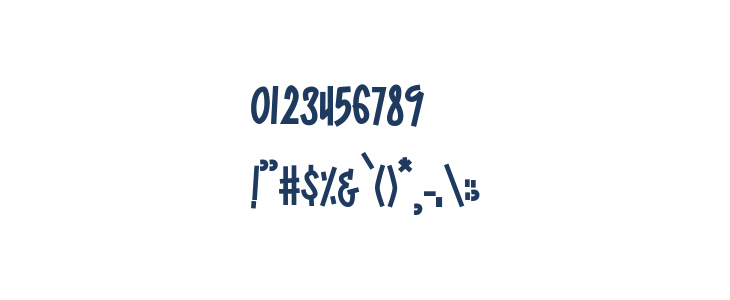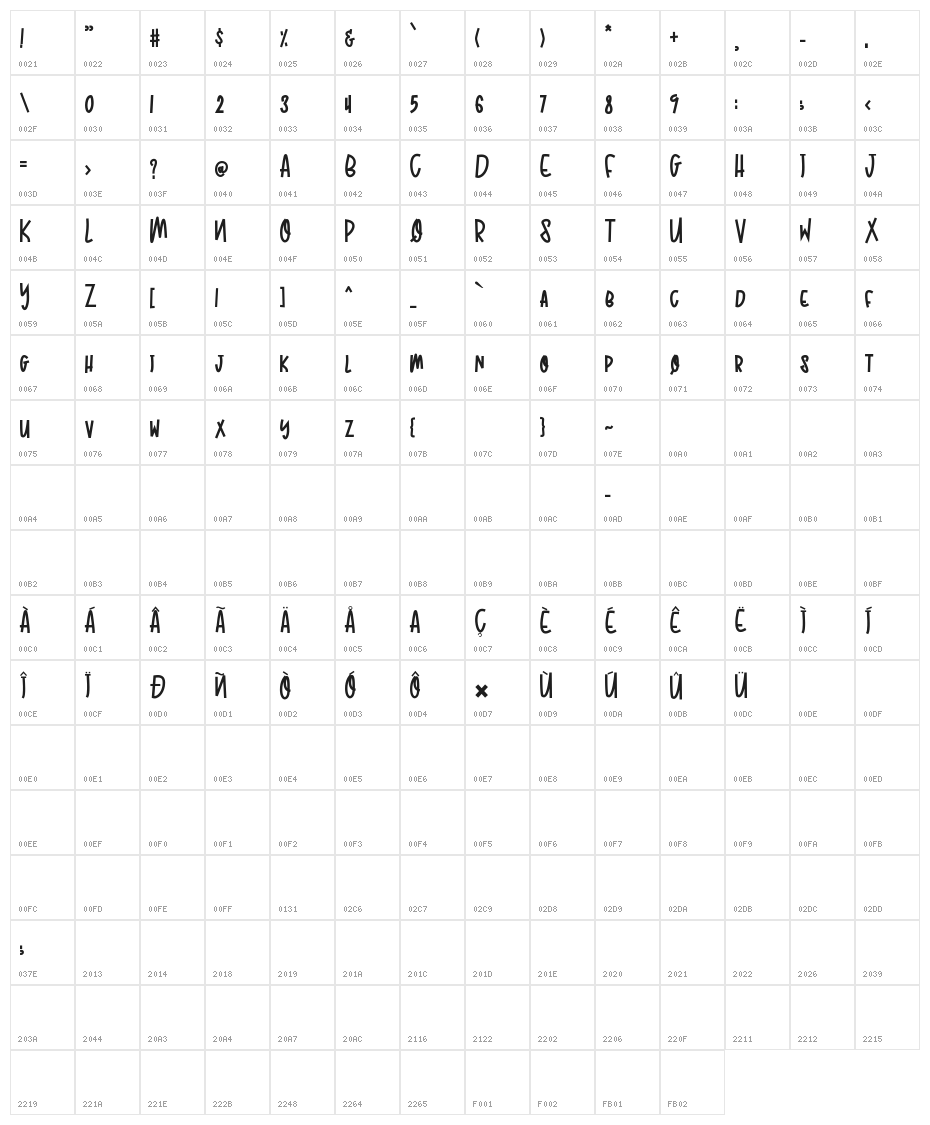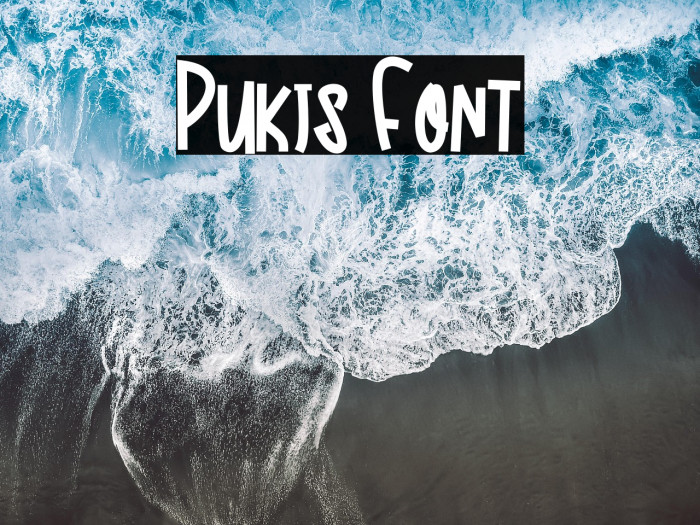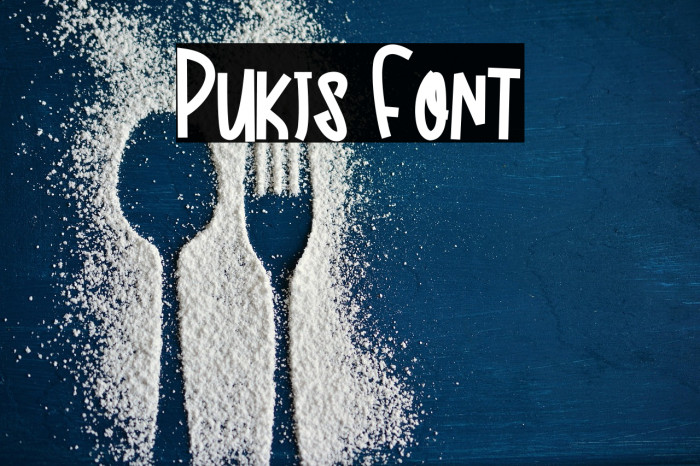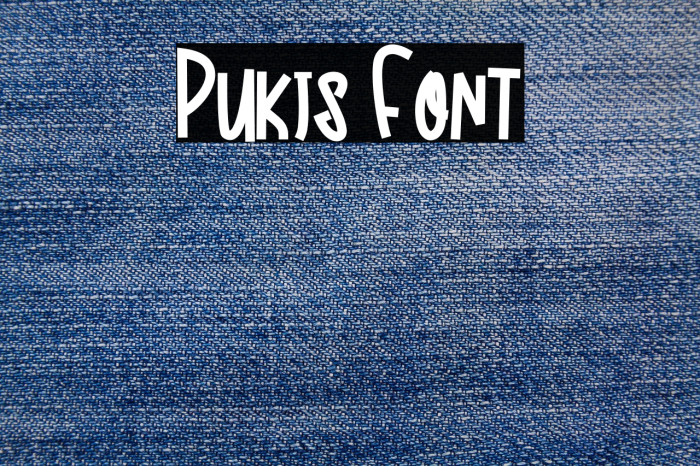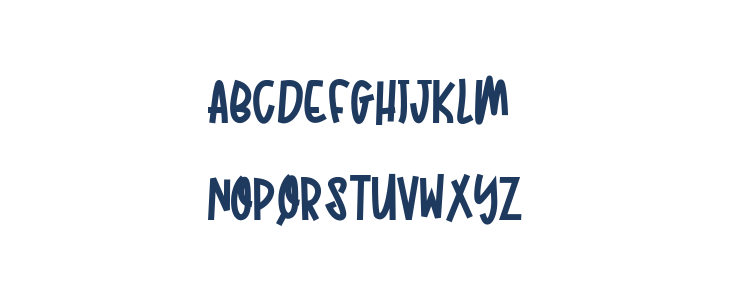
Pukis Font
Pukis Description
This font features a playful and dynamic style with a handwritten appearance. The letters are slightly irregular, adding a whimsical and casual feel. The uppercase and lowercase characters maintain a consistent flow, with some letters exhibiting unique loops and curves that enhance its quirky personality. The numbers and special characters are designed to match the overall aesthetic, making it suitable for creative and informal applications. The font's bold strokes and varying line thicknesses contribute to its lively and energetic look.